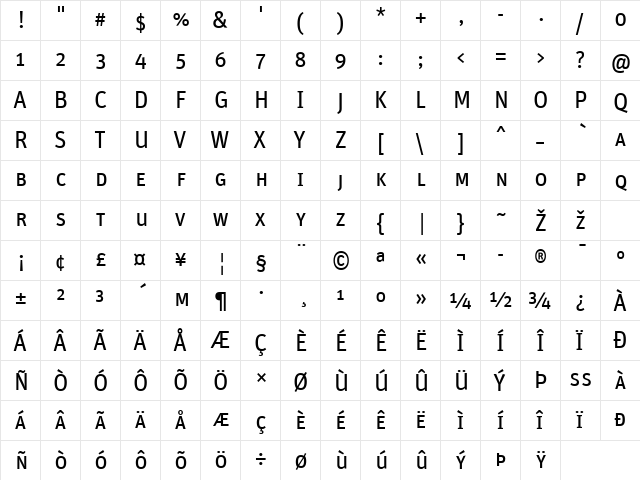
Unit-RegularSC Regular
| Foundry | Erik Spiekermann, Christian Schwartz; published by FontShop International for the FontFont Library |
| Designer | Erik Spiekermann, Christian Schwartz |
Design Context for Unit-RegularSC Typeface
Unit-RegularSC offers clean, dependable letterforms without strong stylistic allegiance, making it a practical choice for designers who need flexibility.